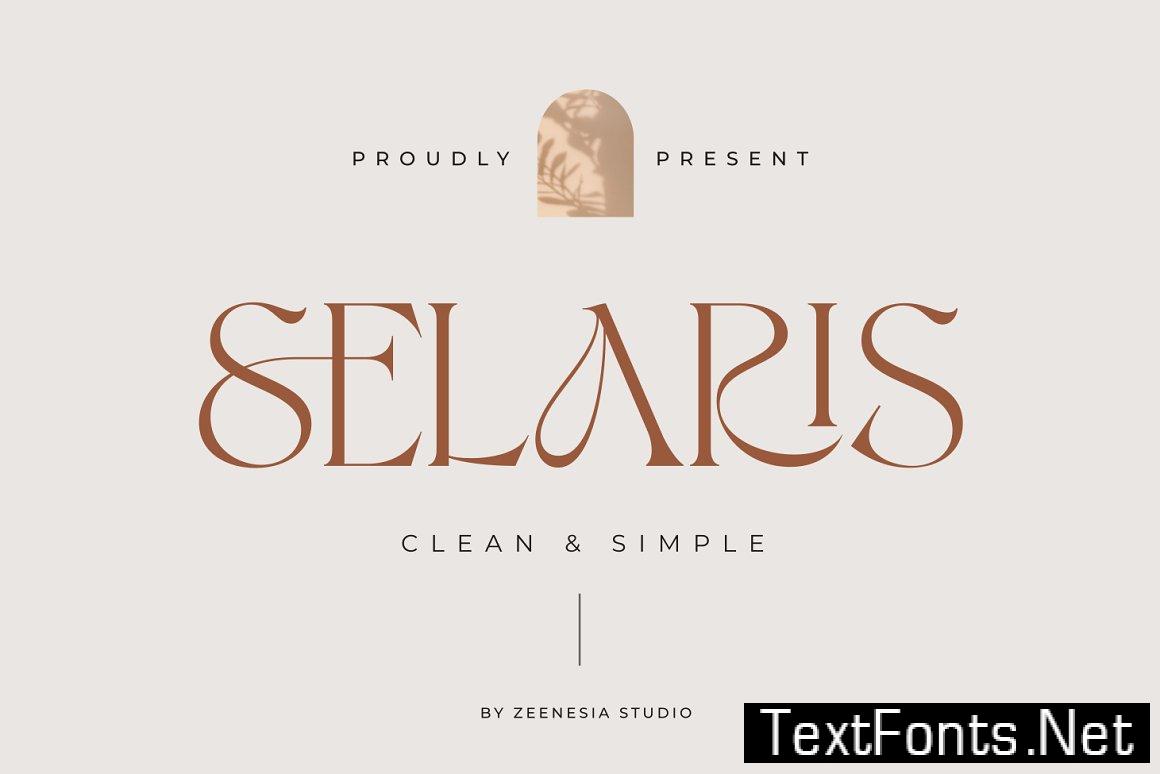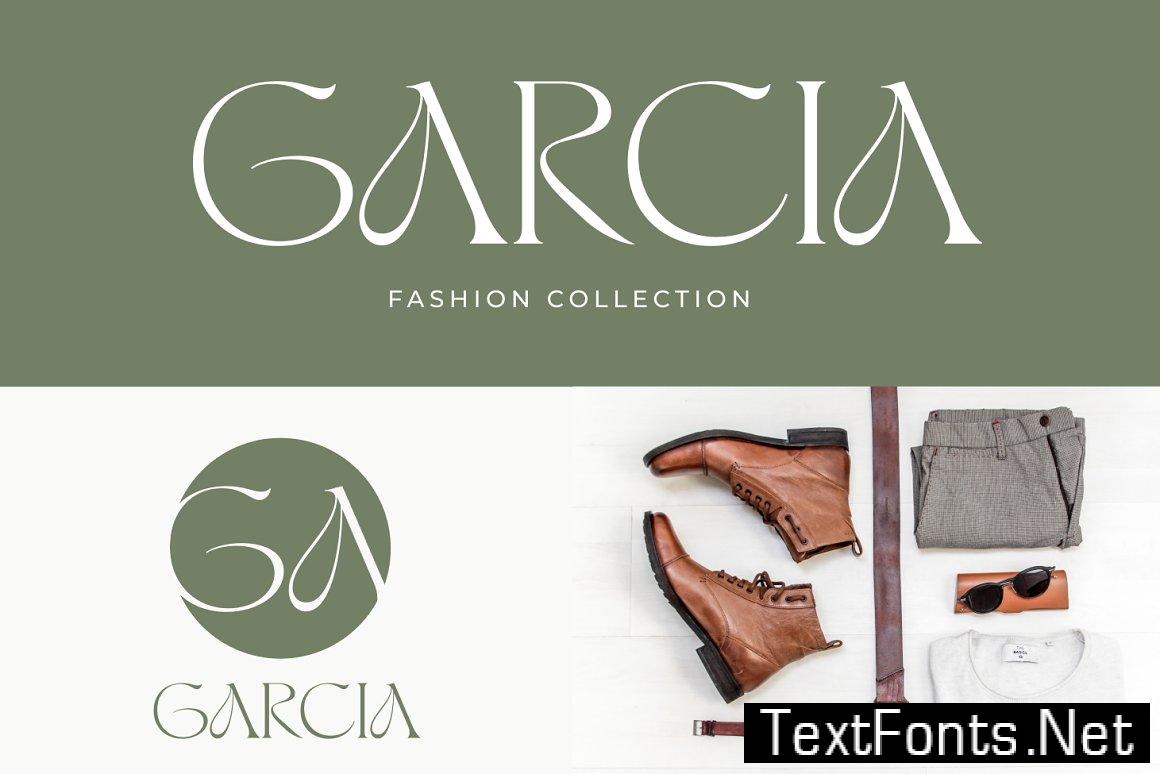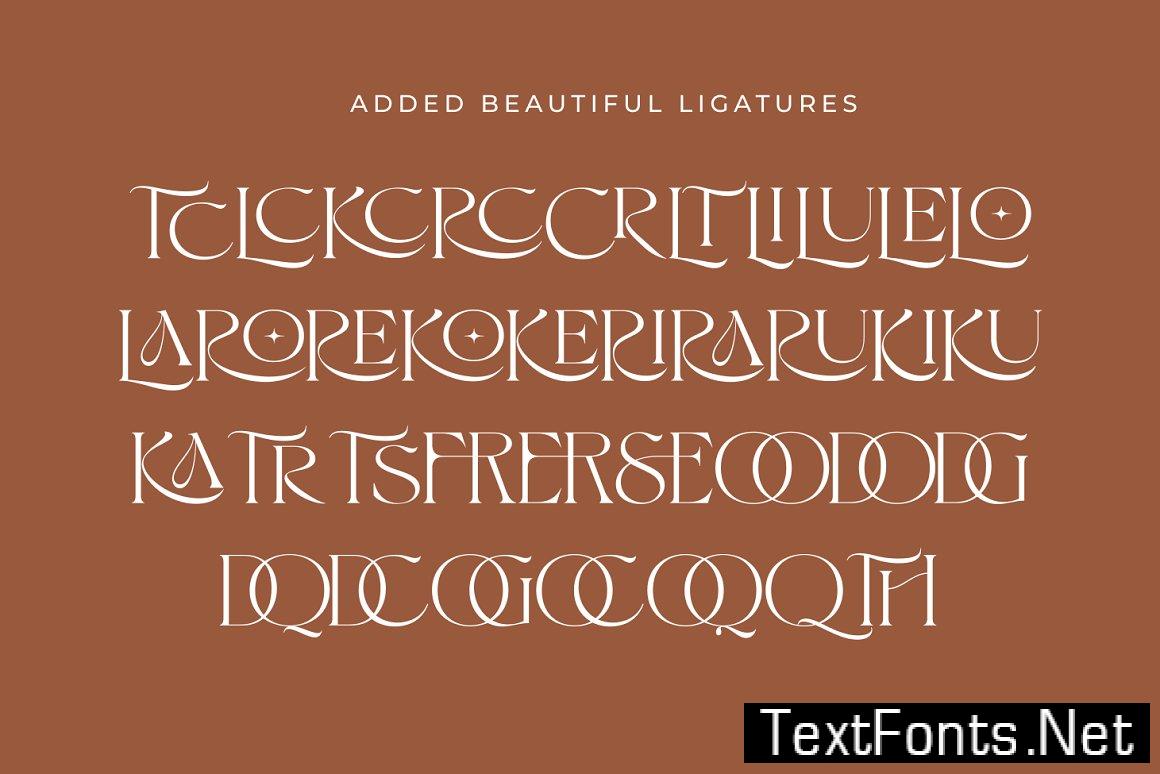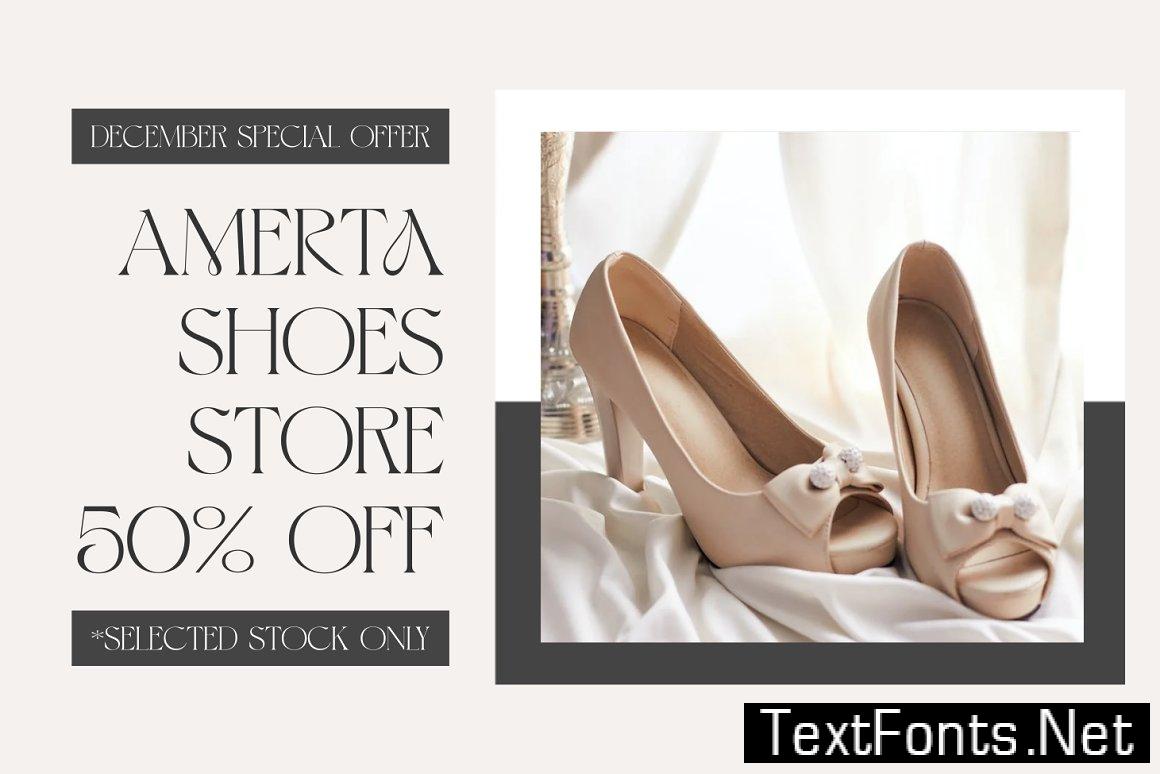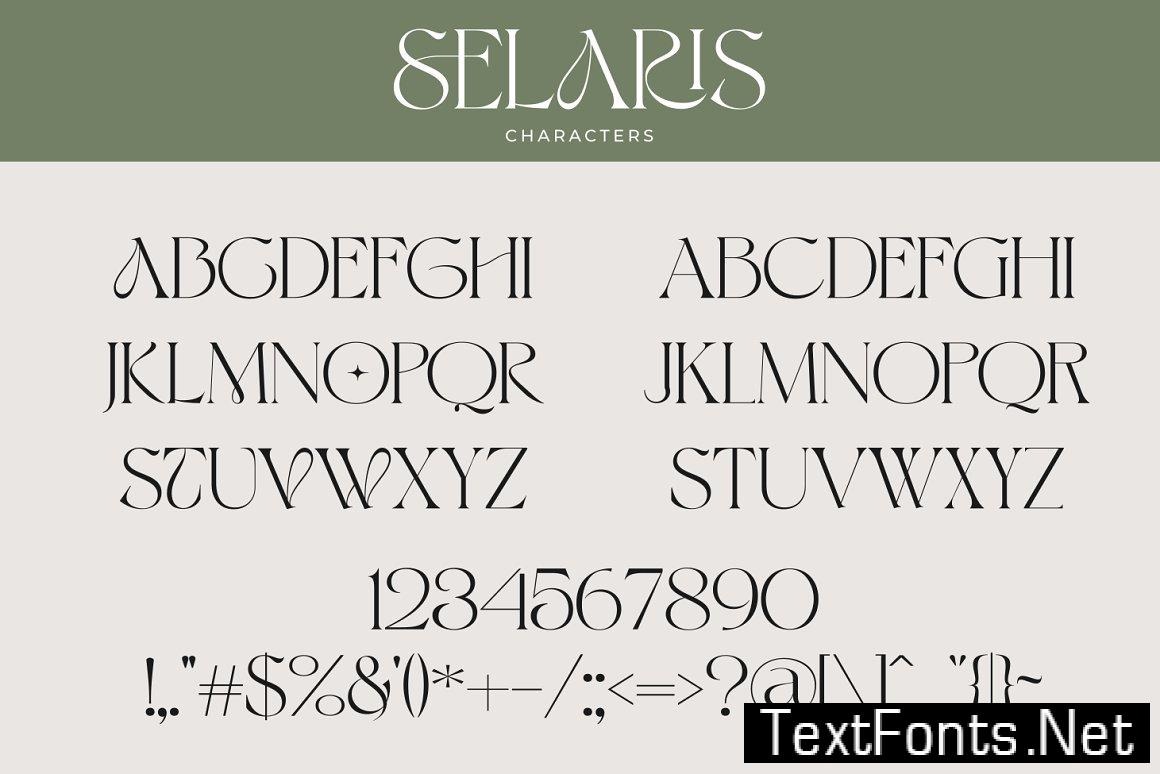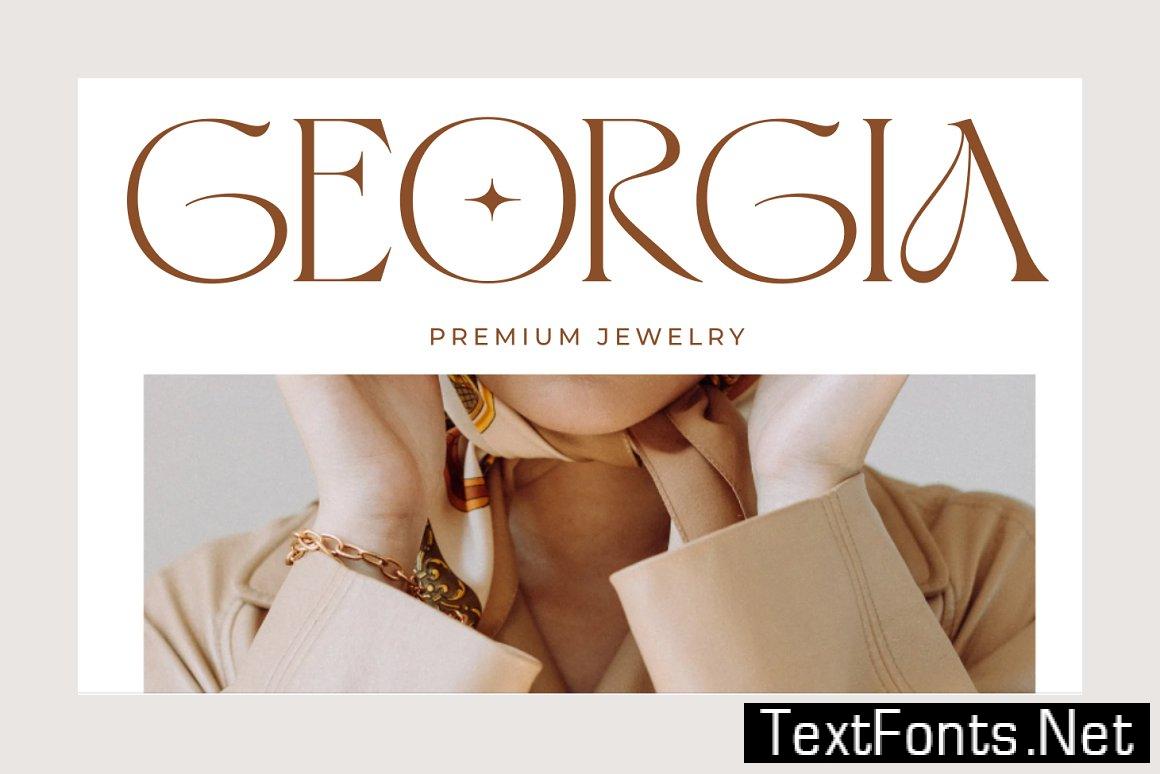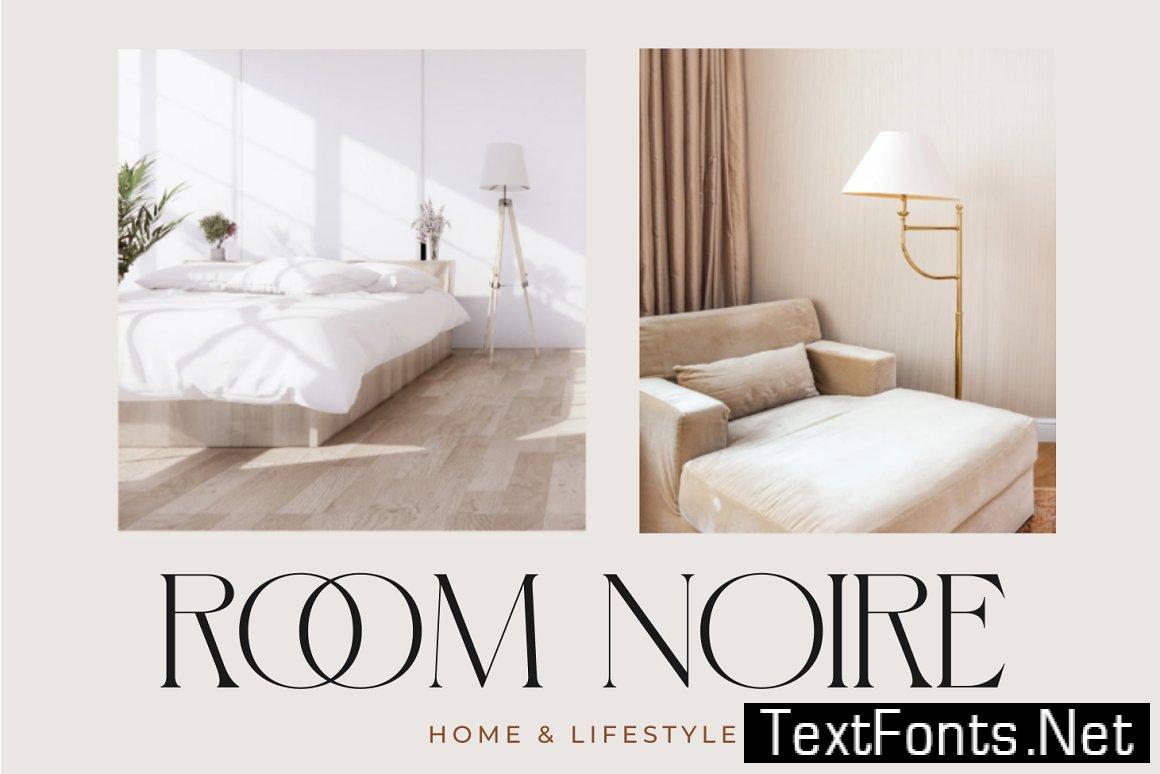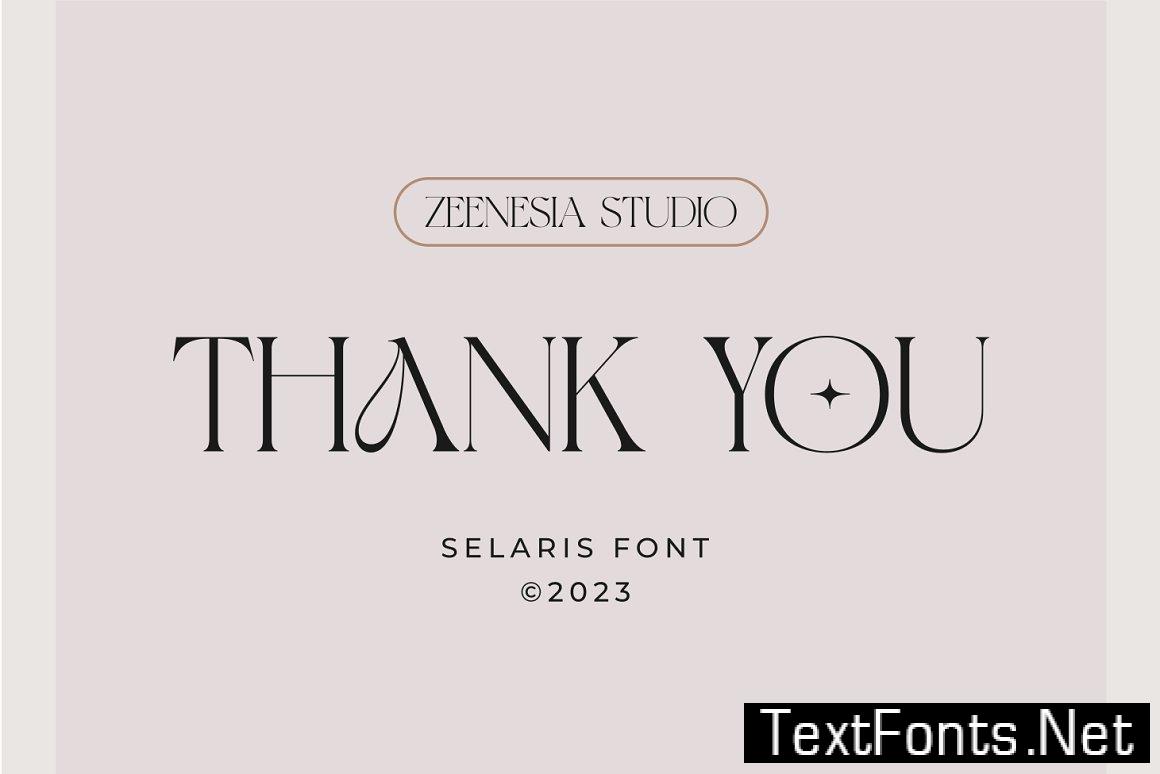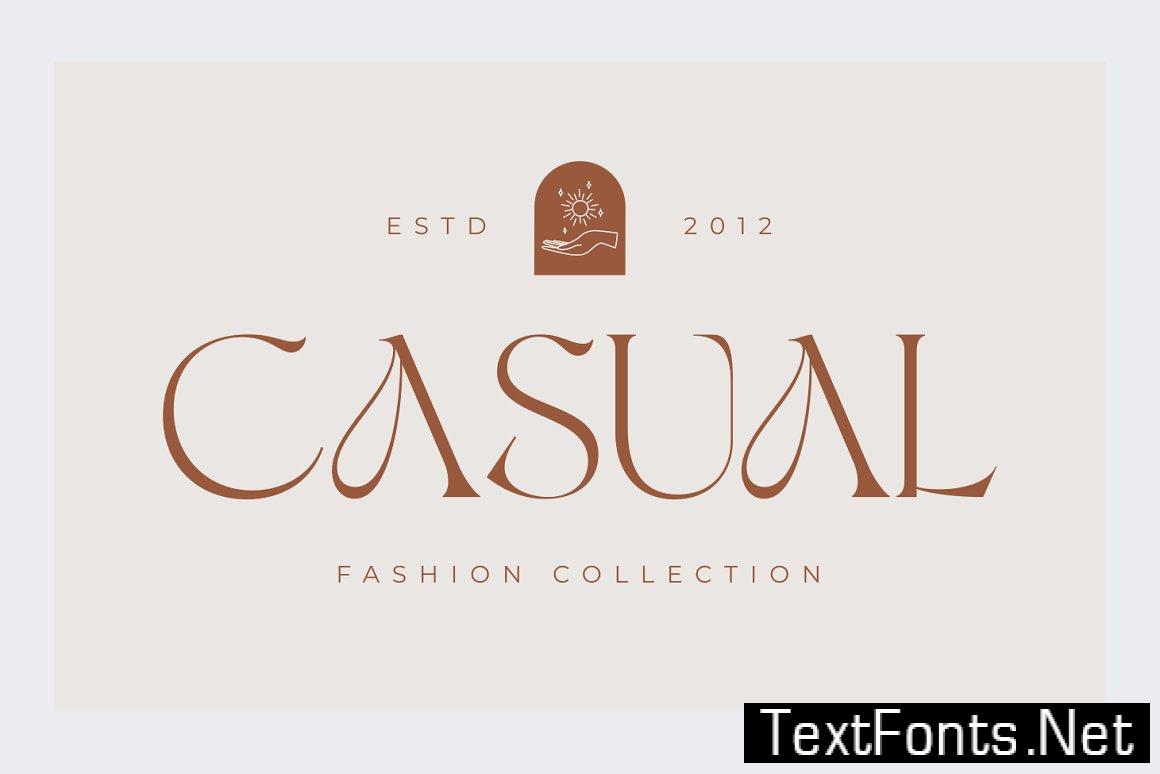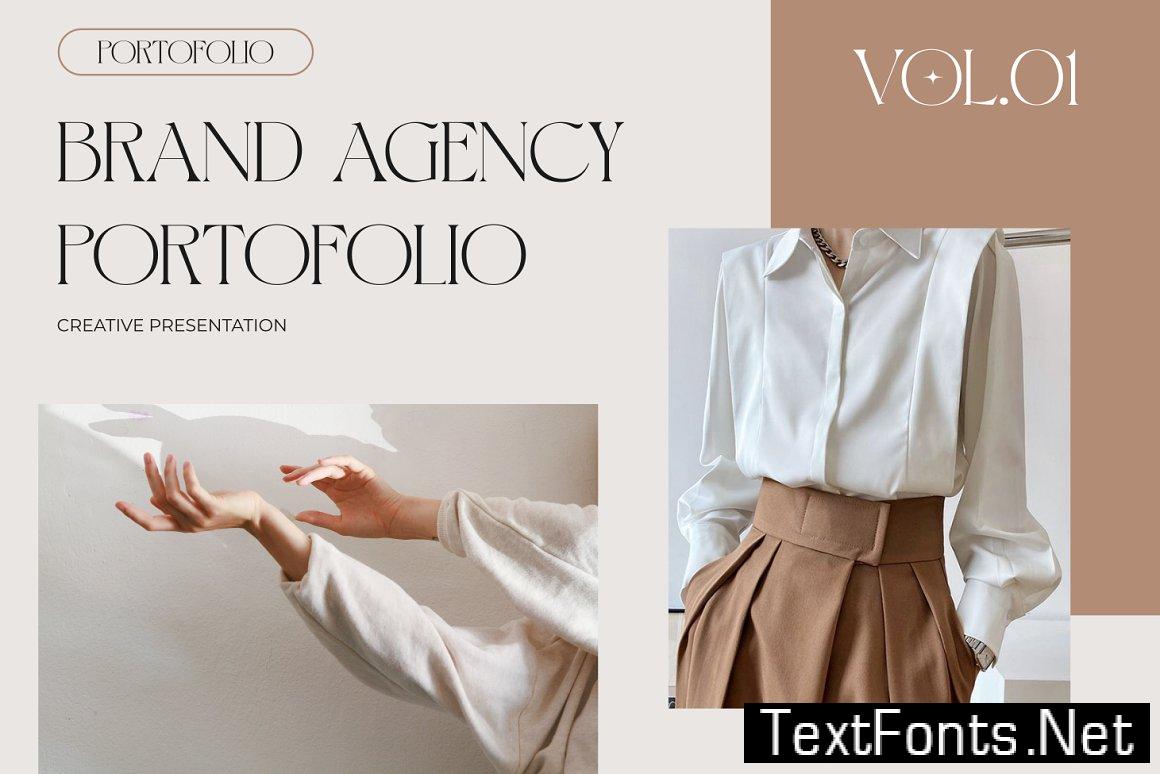
Selaris Modern Serif
Selaris is a beautiful and feminine serif font created by a romantic and lovely look. Selaris was built with Open Type features, stylistic Alternate and Ligature makes your project will be awesome. Free Download Selaris Modern Serif. This Selaris Modern Serif is a premium resource shared for free at TextFonts.net . Selaris Modern Serif does not require a premium account to download .Selaris Modern Serif is compressed in zip or rar format , please use Winrar software to extract and use Selaris Modern Serif